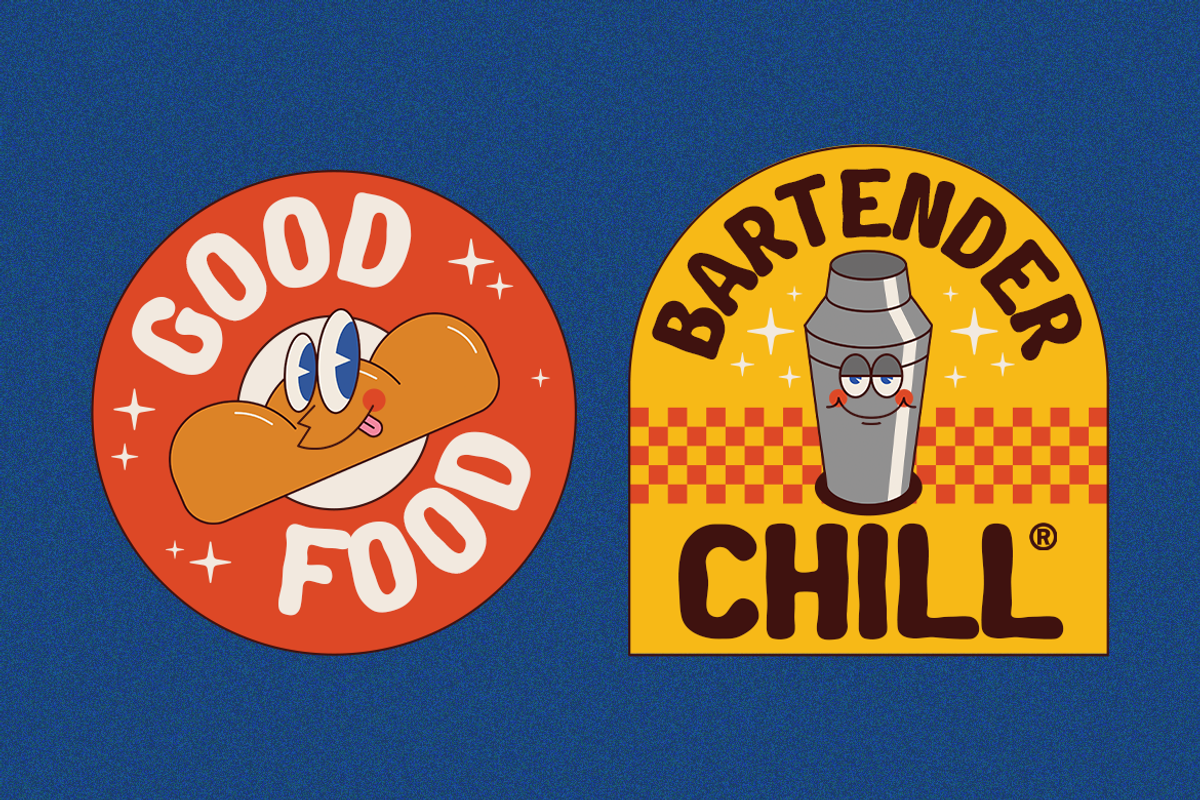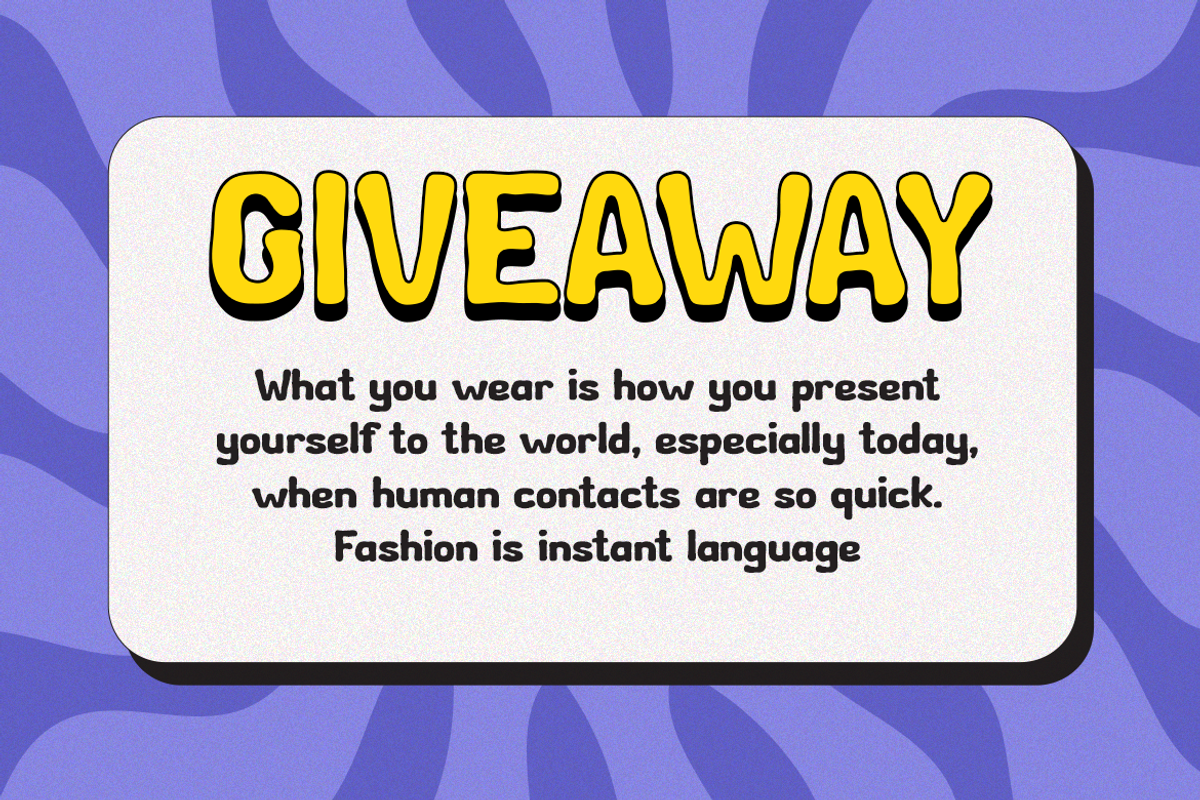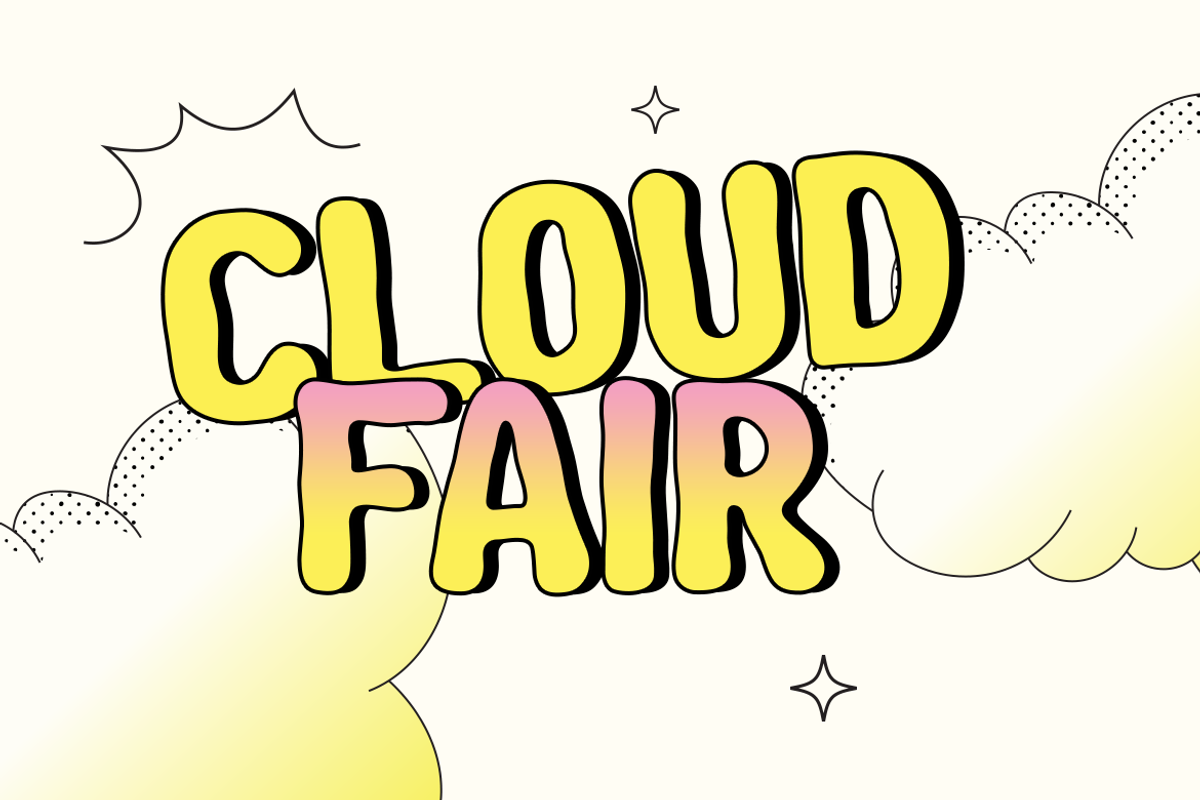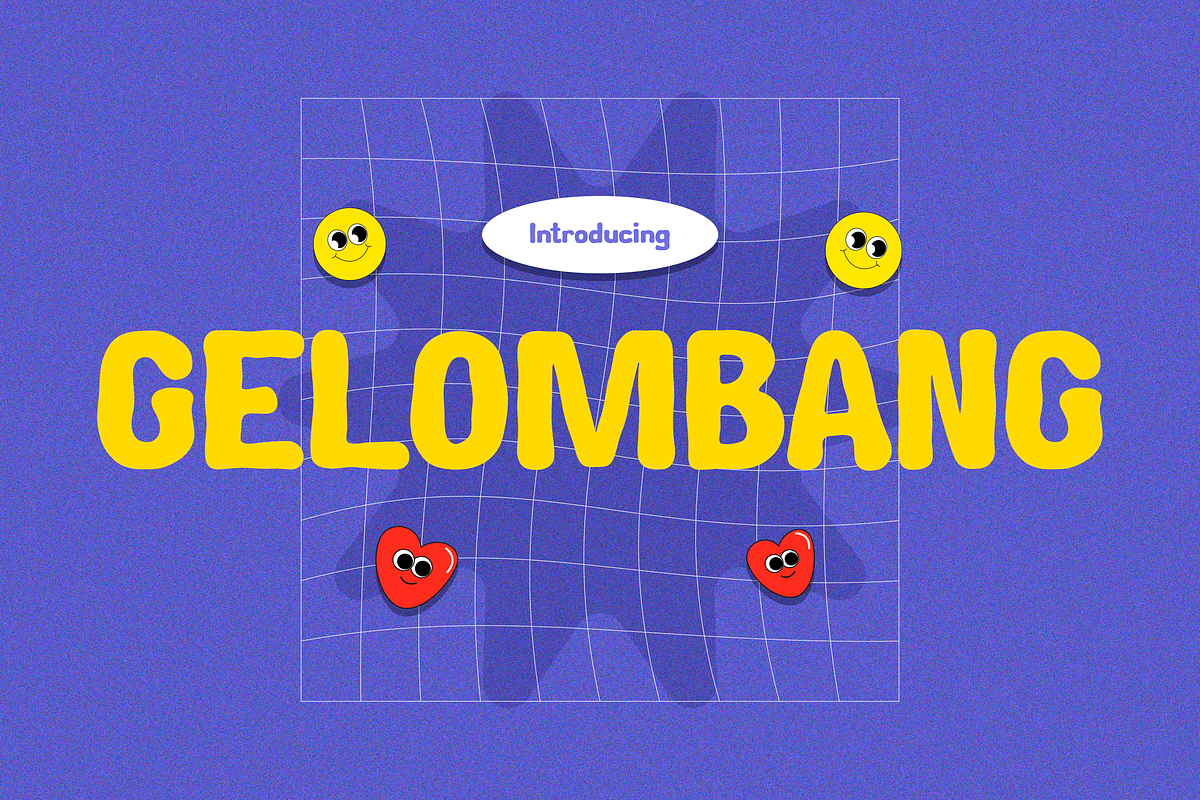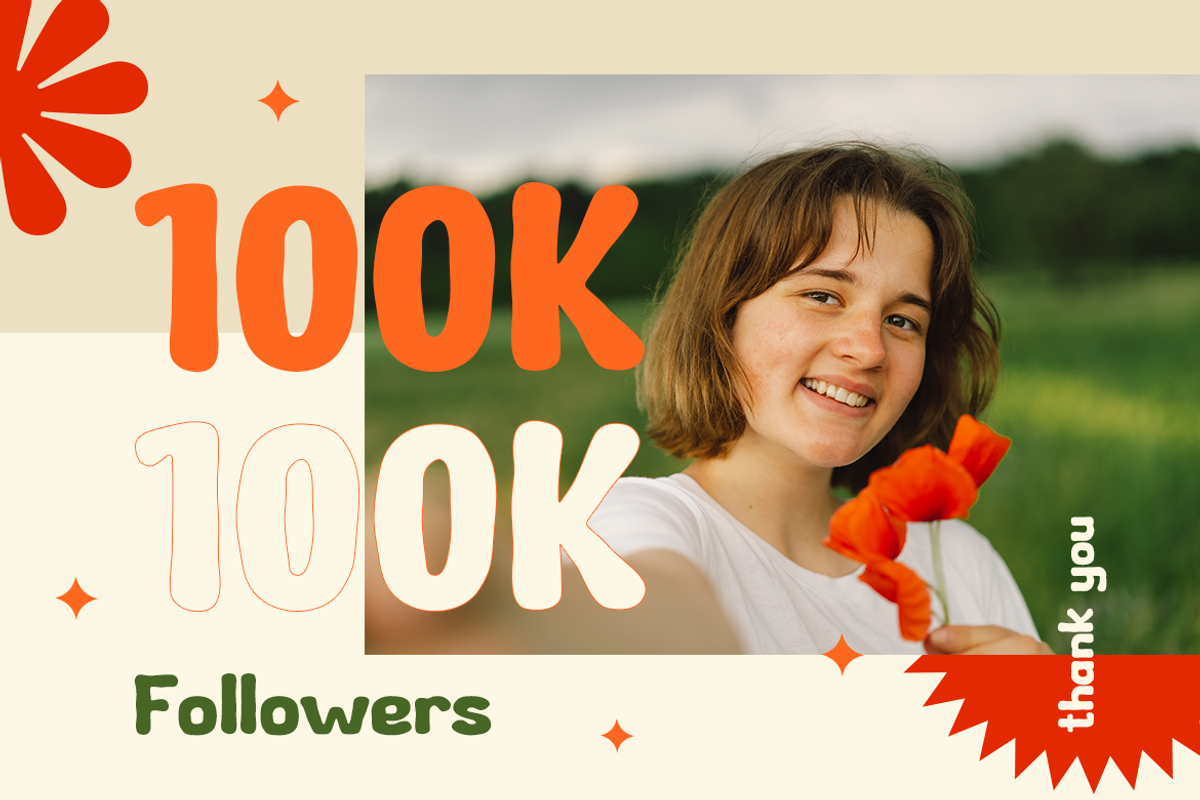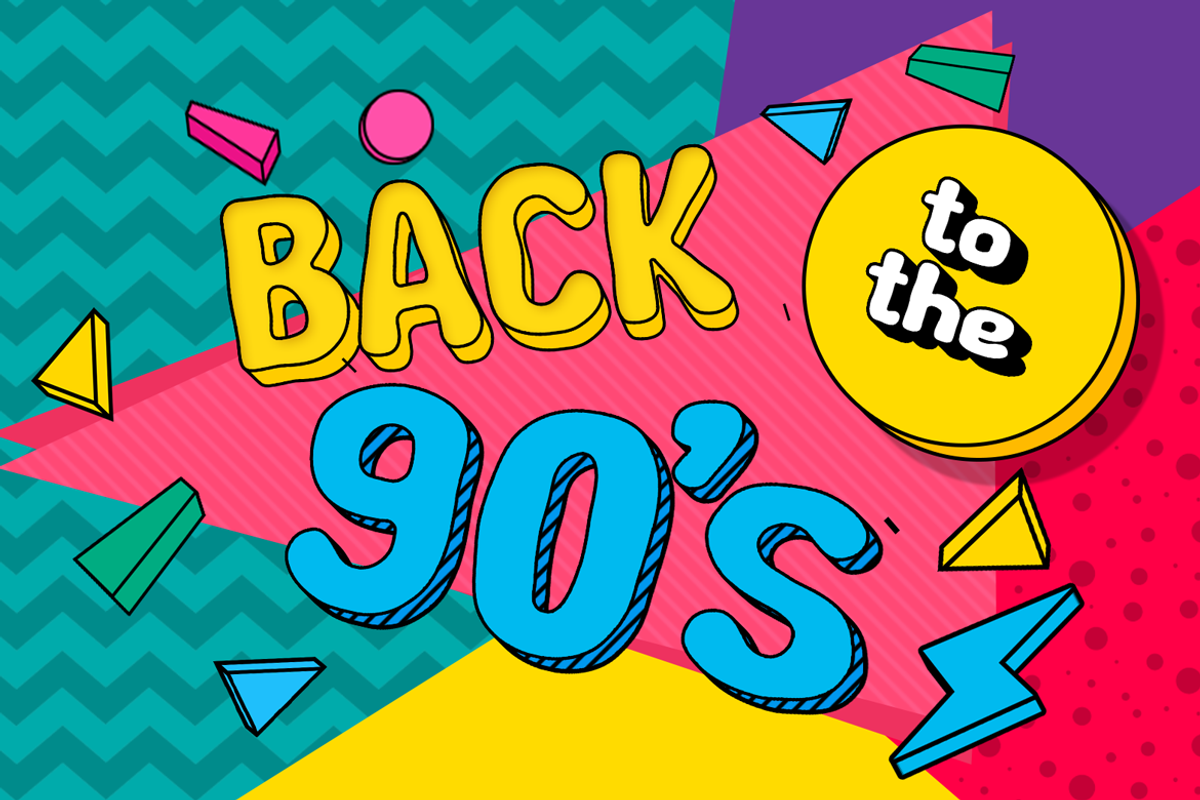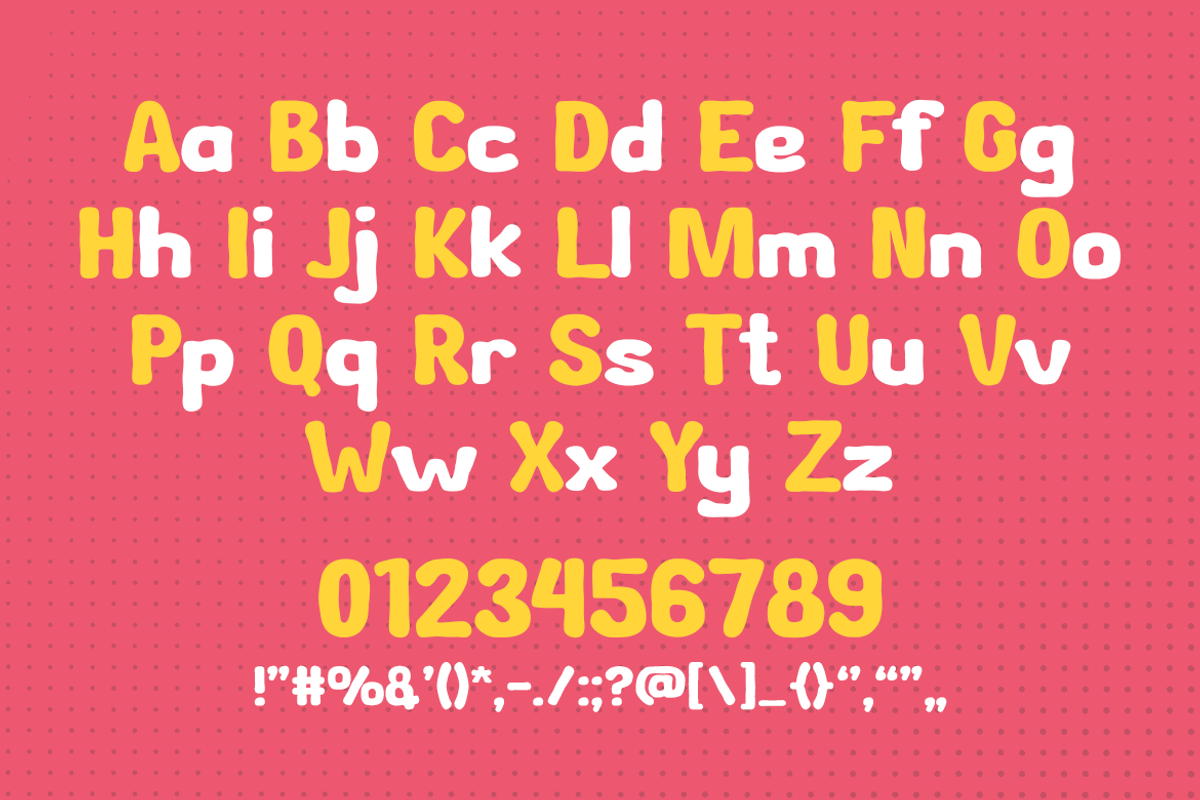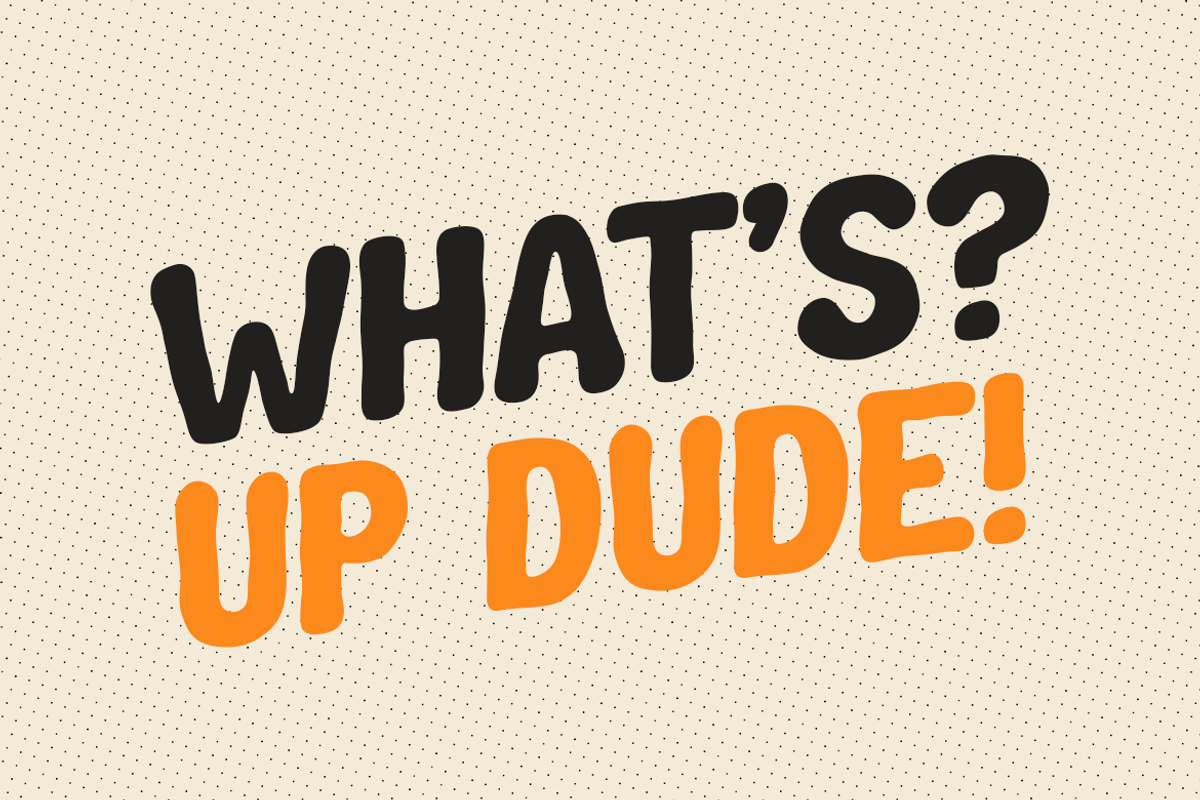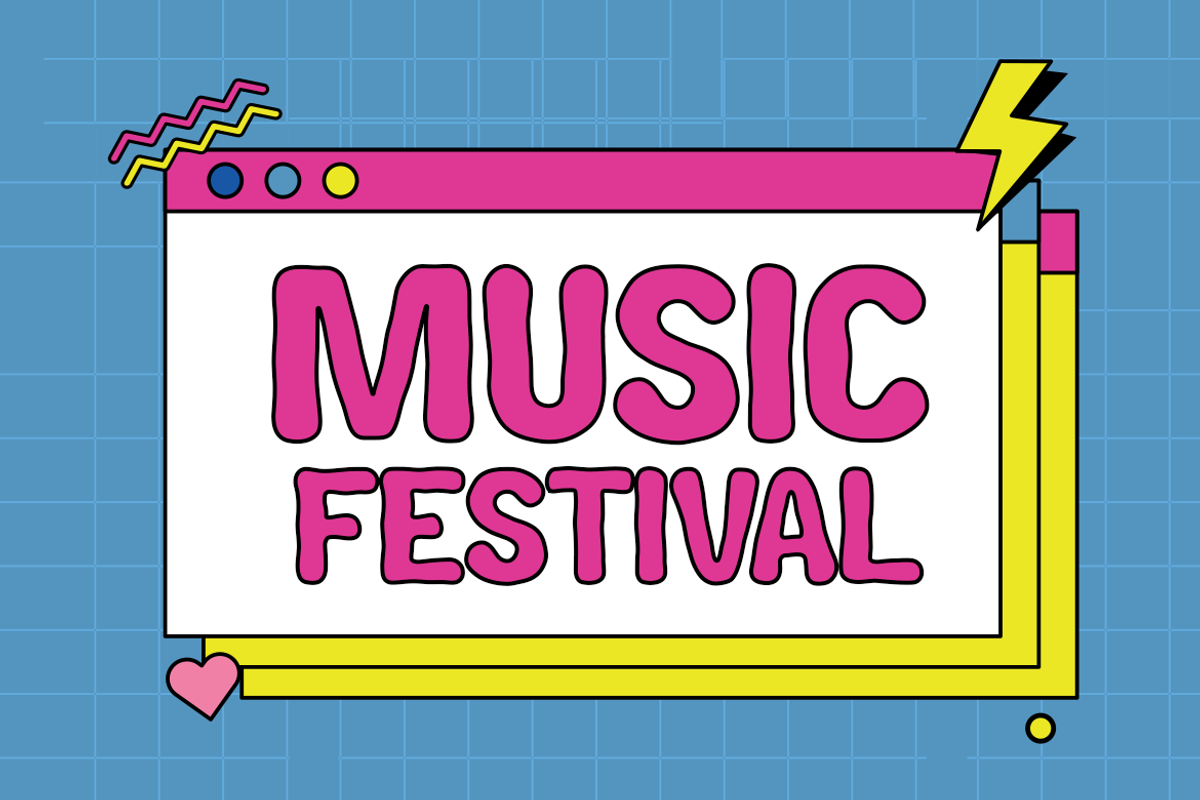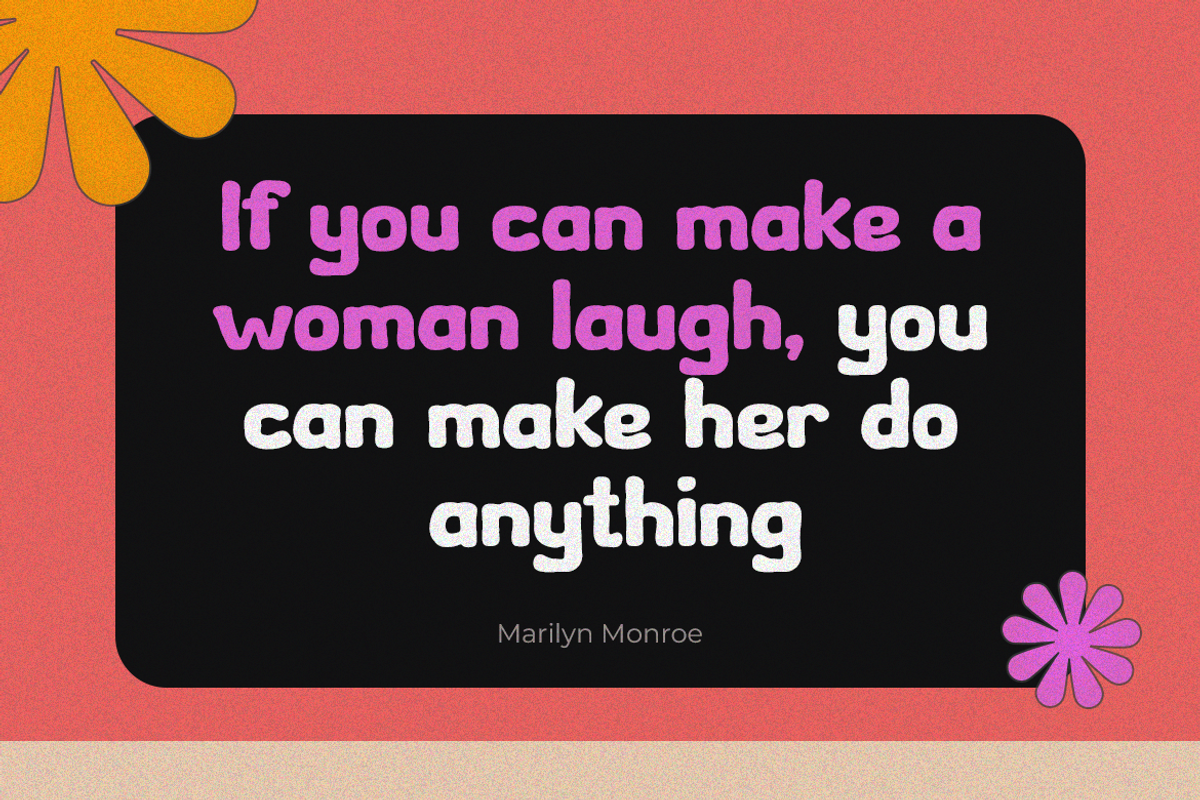
Gelombang
GELOMBANG – Retro Font
Introducing GELOMBANG – the font that effortlessly captures the essence of retro charm in a sleek display style! Perfect for those seeking a touch of nostalgia in their designs, GELOMBANG is your key to infusing a vintage vibe into fashion, logos, quotes, invitations, posters, greeting cards, packaging, branding, cover albums, events, and postcards. This versatile typeface seamlessly blends the classic with the contemporary, making it an ideal choice for a wide range of creative projects.